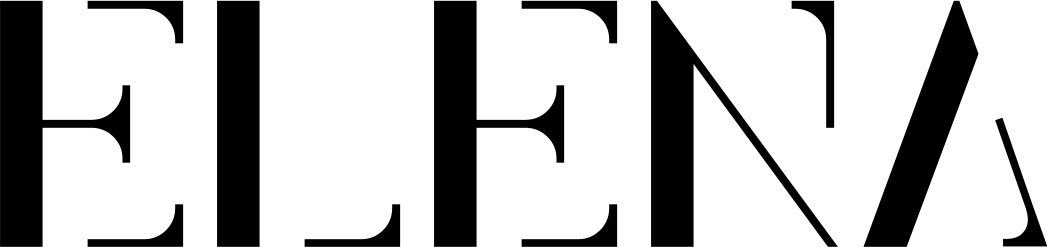
Elena Font
Elena is a gold font. It has a sans serif shape but was designed and changed into something crisp and elegant like this and it can be used for many purposes like a magazine front page, fashion websites, logos, brands, et…
Elena is a gold font. It has a sans serif shape but was designed and changed into something crisp and elegant like this and it can be used for many purposes like a magazine front page, fashion websites, logos, brands, etc. This luxury serif font comes with a good collection of characters but you don’t get lowercase of the alphabets.